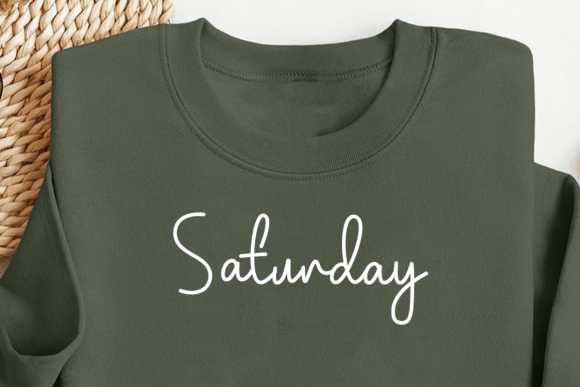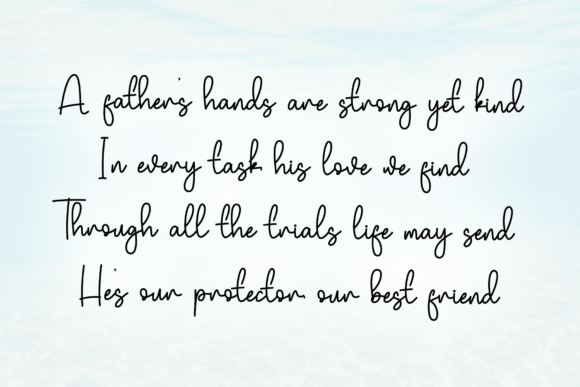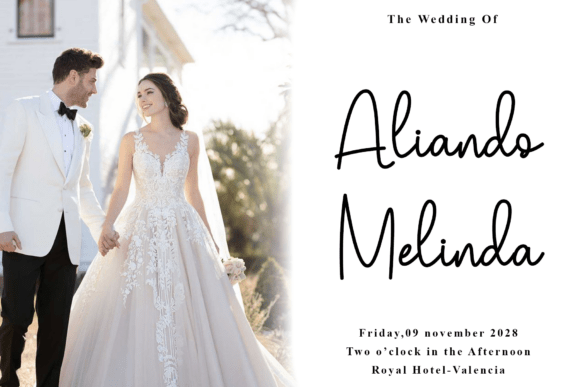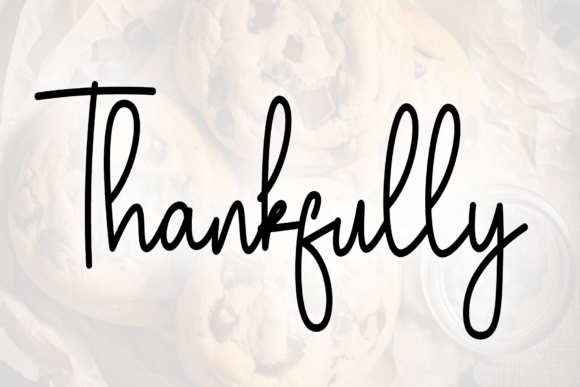
Biscuits Font: Elevate Your Brand with Sophisticated Script Style
In the world of typography, a font can make or break the visual identity of a brand. For designers and crafters seeking to add a touch of elegance and whimsy to their projects, Biscuits Font is an exceptional choice. This sophisticated and rhythmic script font strikes the perfect balance between calligraphic style and warm, organic aesthetic, making it ideal for artisanal food branding, boutique product packaging, upscale lifestyle marketing, and creative editorial titles.
The Unique Charm of Biscuits Font
Biscuits Font is distinguished by its sweeping, looping ascenders that create a sense of customized, artisanal artistry. This defining characteristic sets it apart from other script fonts, imbuing it with a sense of personality and flair. The font’s calligraphic style is balanced by a warm, organic feel, making it versatile and suitable for a wide range of applications.
Perfect for Artisanal Food Branding
For artisanal food brands, Biscuits Font offers a unique opportunity to stand out in a crowded market. Its sophisticated and elegant style is perfect for labeling specialty foods, such as baked goods, chocolates, and gourmet cheeses. The font’s warm, organic feel also evokes a sense of nostalgia and tradition, making it well-suited for brands that emphasize heritage and craftsmanship.
Boutique Product Packaging Made Easy
Biscuits Font is also an excellent choice for boutique product packaging. Its elegant script style adds a touch of luxury and sophistication to any product, making it perfect for high-end cosmetics, jewelry, and home decor items. The font’s versatility allows it to be used in a variety of design contexts, from simple labels to elaborate packaging designs.
Upscale Lifestyle Marketing and Editorial Titles
In addition to its applications in food branding and product packaging, Biscuits Font is also well-suited for upscale lifestyle marketing and editorial titles. Its sophisticated style and rhythmic flow make it perfect for titles, headings, and other display text in publications, advertisements, and marketing materials. The font’s unique charm and personality are sure to capture the attention of readers and leave a lasting impression.
Why Choose Biscuits Font?
So, why choose Biscuits Font for your design projects? Here are just a few reasons:
- Unique and distinctive style: Biscuits Font offers a one-of-a-kind script style that sets it apart from other fonts.
- Versatility: The font’s warm, organic feel and elegant style make it suitable for a wide range of applications, from food branding to editorial titles.
- Elegance and sophistication: Biscuits Font adds a touch of luxury and refinement to any design, making it perfect for high-end brands and products.
- Easy to read and understand: Despite its elegant style, Biscuits Font is easy to read and understand, making it a practical choice for body text and other long-form content.
Tips for Using Biscuits Font
To get the most out of Biscuits Font, here are a few tips to keep in mind:
- Use it sparingly: Biscuits Font is a display font, and its impact is best felt when used sparingly. Use it for titles, headings, and other display text to add emphasis and visual interest.
- Pair it with complementary fonts: Biscuits Font pairs well with a variety of fonts, including serif and sans-serif fonts. Experiment with different pairings to find the one that works best for your design.
- Adjust the font size and style: To add visual interest and hierarchy to your design, experiment with different font sizes and styles. Biscuits Font offers a range of weights and styles to choose from.
Biscuits Font is a sophisticated and elegant script font that offers a unique blend of calligraphic style and warm, organic aesthetic. Its versatility, elegance, and sophistication make it an excellent choice for artisanal food branding, boutique product packaging, upscale lifestyle marketing, and creative editorial titles. With its sweeping, looping ascenders and rhythmic flow, Biscuits Font is sure to add a touch of personality and flair to any design project.